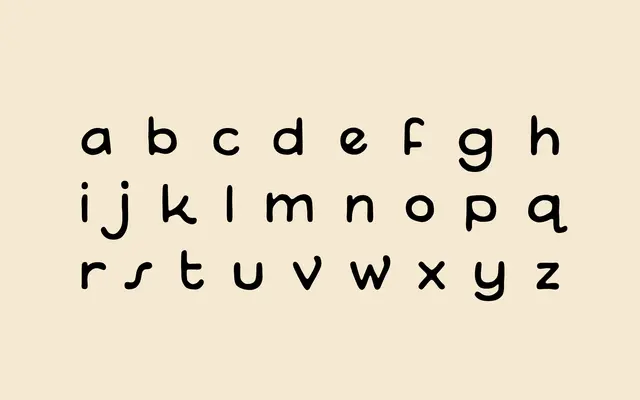
Motherlands
A single-weight display face drawn from lettering found on World War II-era maps, recreated after the designer found no existing digital version.
Inspired by cartographic lettering encountered during library research into Second World War materials, this face fills a genuine gap where no digital revival previously existed. It ships as a single Regular weight and covers 74 languages. Best suited to display and headline use where a period map aesthetic is wanted.
Drawn from lettering found on World War II-era maps, placing it firmly in the display category as a historically-informed revival with a specific archival source rather than a text or body-copy application.